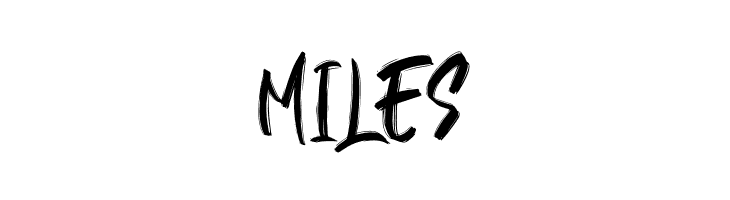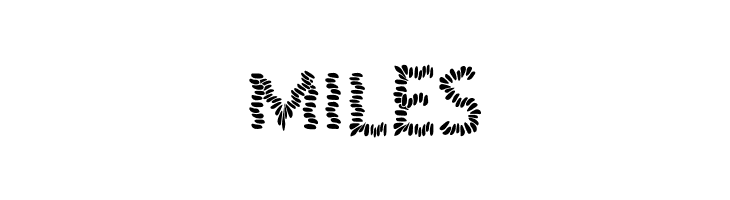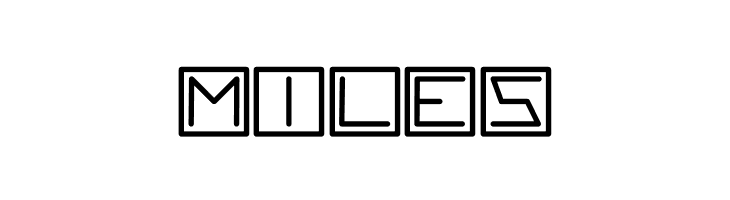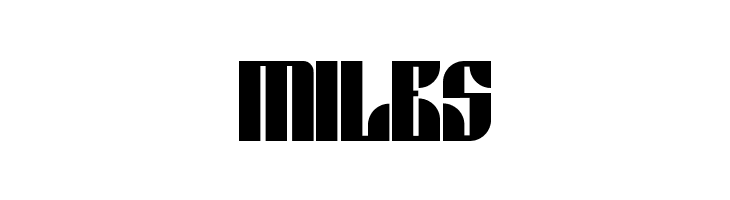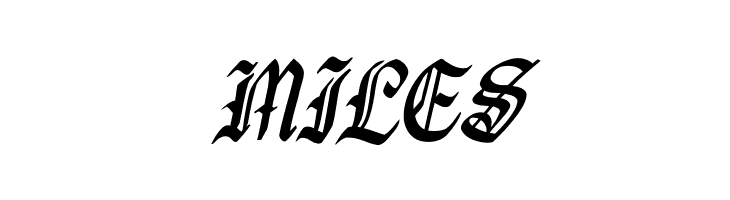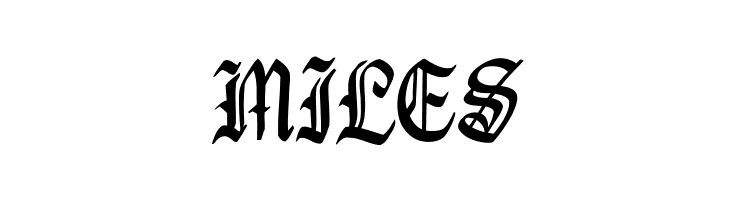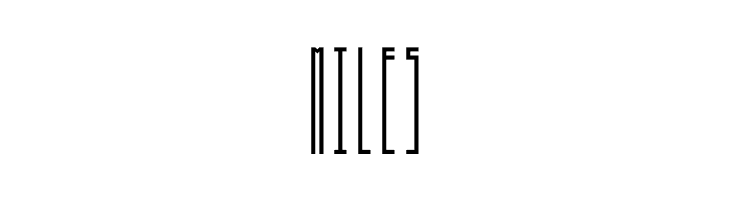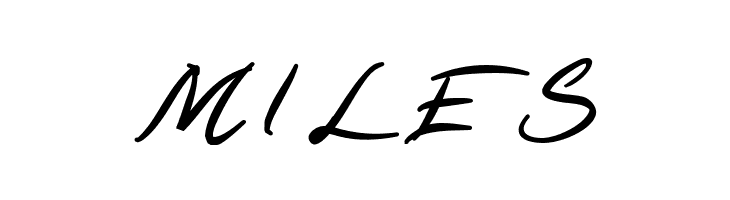
A bold, geometric font with high contrast and strong visual impact.
A futuristic, geometric font with consistent stroke width and monospaced feel.
A bold, decorative font with characters formed by stone-like shapes.
A bold, brush-style font with an energetic and artistic flair.
A bold, ornate Blackletter font with sharp, angular lines and medieval flair.
An ornate, italicized font with sharp, angular lines and a calligraphic style.
A dynamic and elegant cursive script font with smooth connections and moderate contrast.
A bold, brush-style font with dynamic, hand-painted strokes.
A bold, geometric font with characters enclosed in square outlines, offering a modern and structured look.